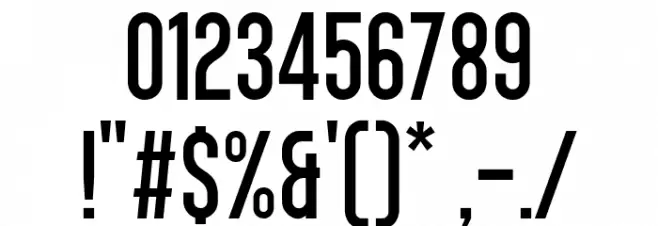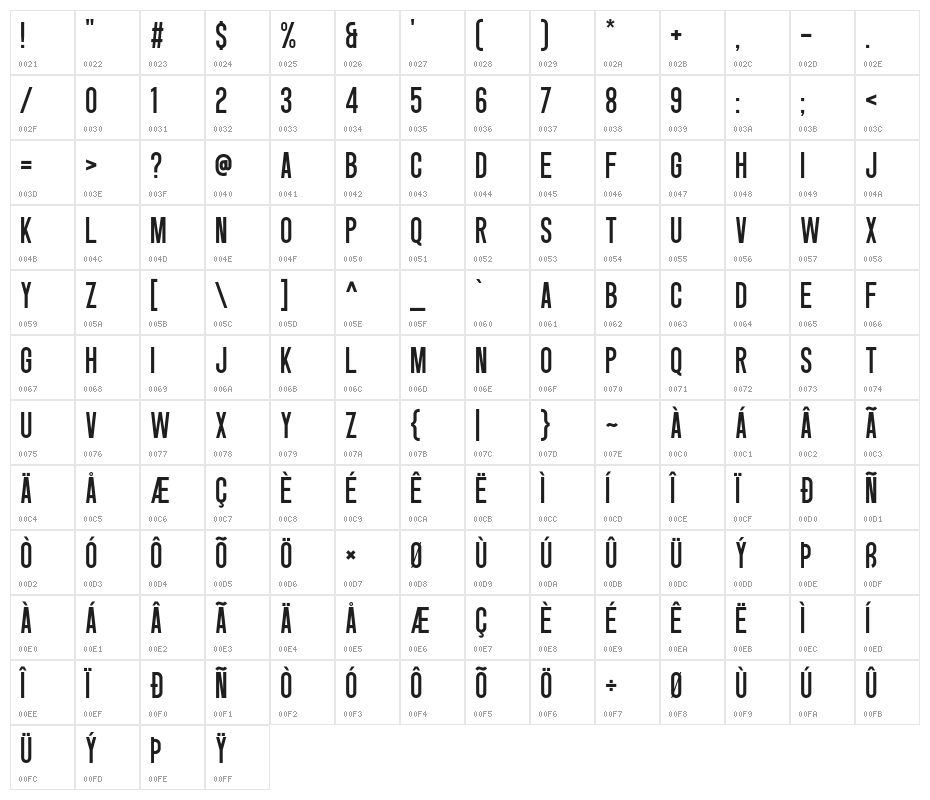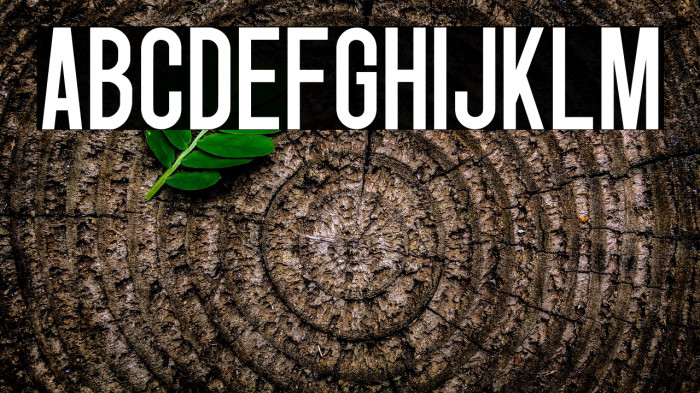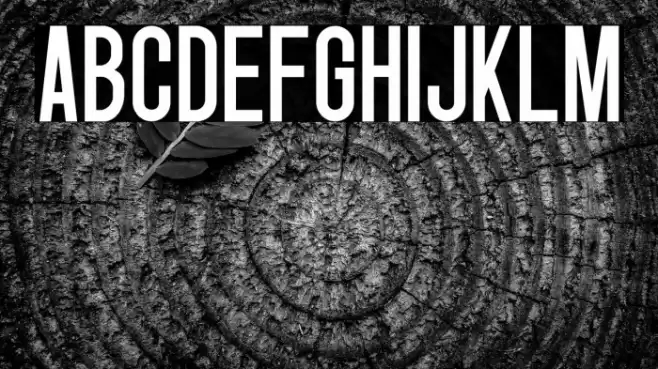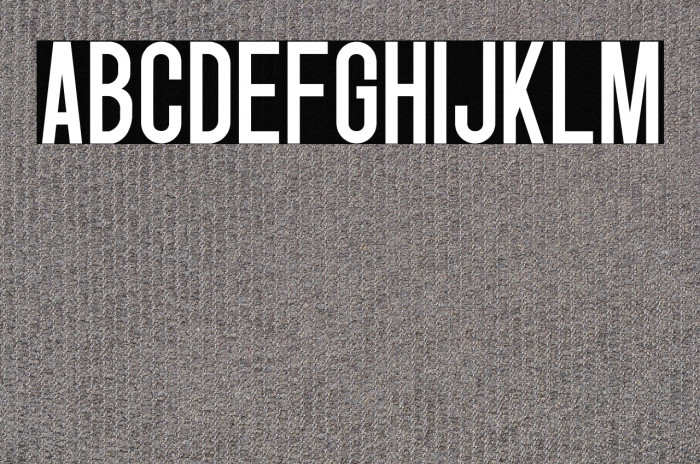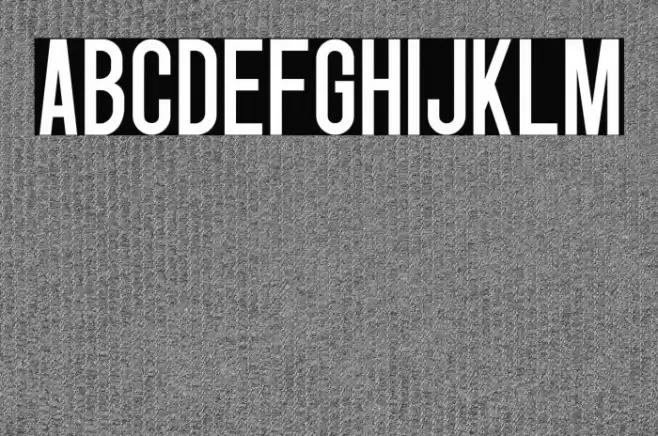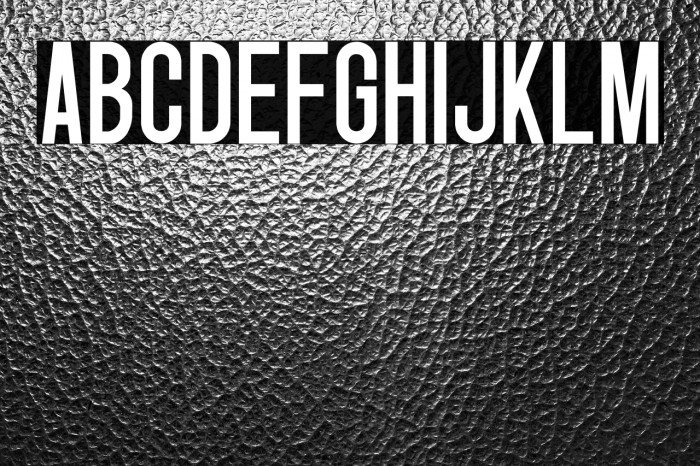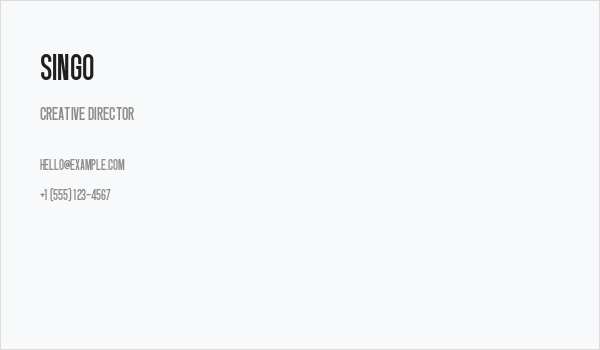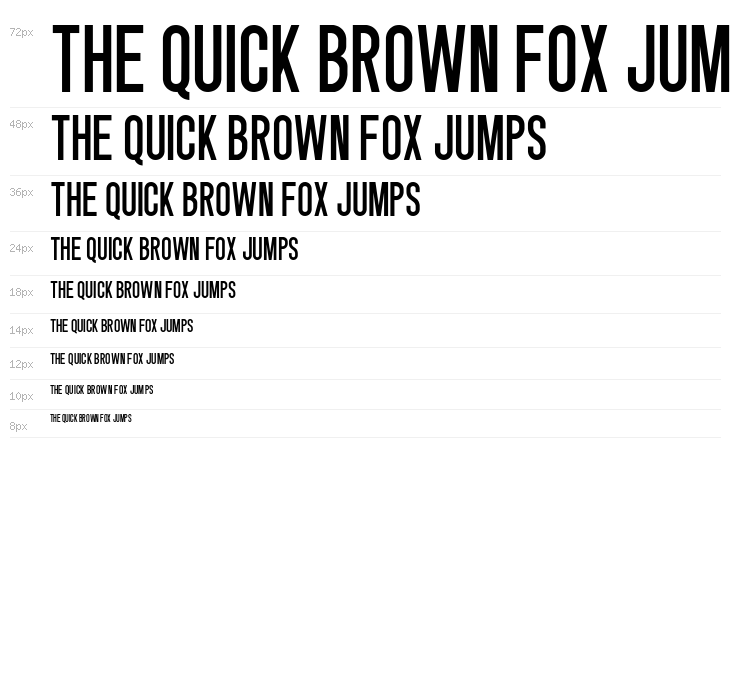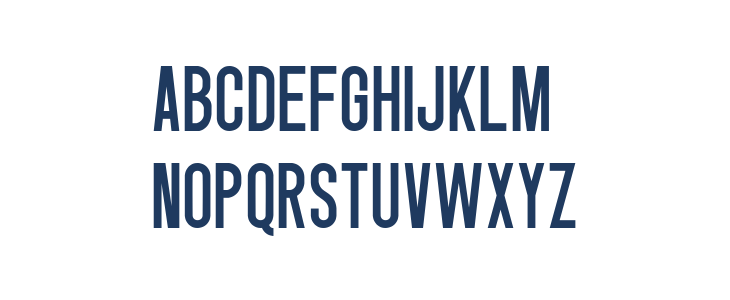
Singo Font
Singo Description
This font features a bold and impactful design with a strong presence. The characters are tall and narrow, giving a condensed appearance that maximizes vertical space. The strokes are consistent in width, providing a uniform look across all characters. The uppercase and lowercase letters maintain a similar style, ensuring readability and cohesion. The numerals are clear and distinct, matching the overall boldness of the font. Special characters are well-defined, making them suitable for various applications. This font is ideal for projects that require a strong visual impact.
| Proposed Projects | Ideal for posters, headlines, branding, and advertising where a bold statement is needed. |